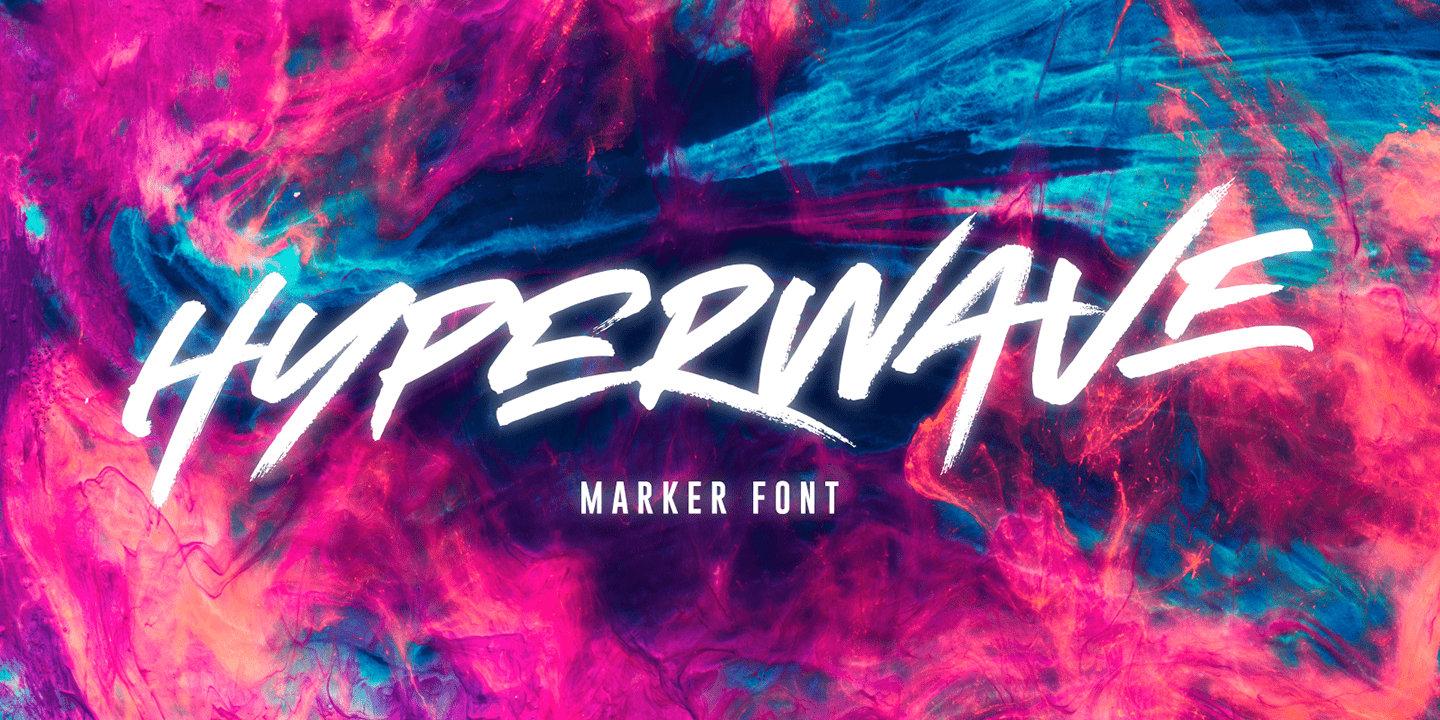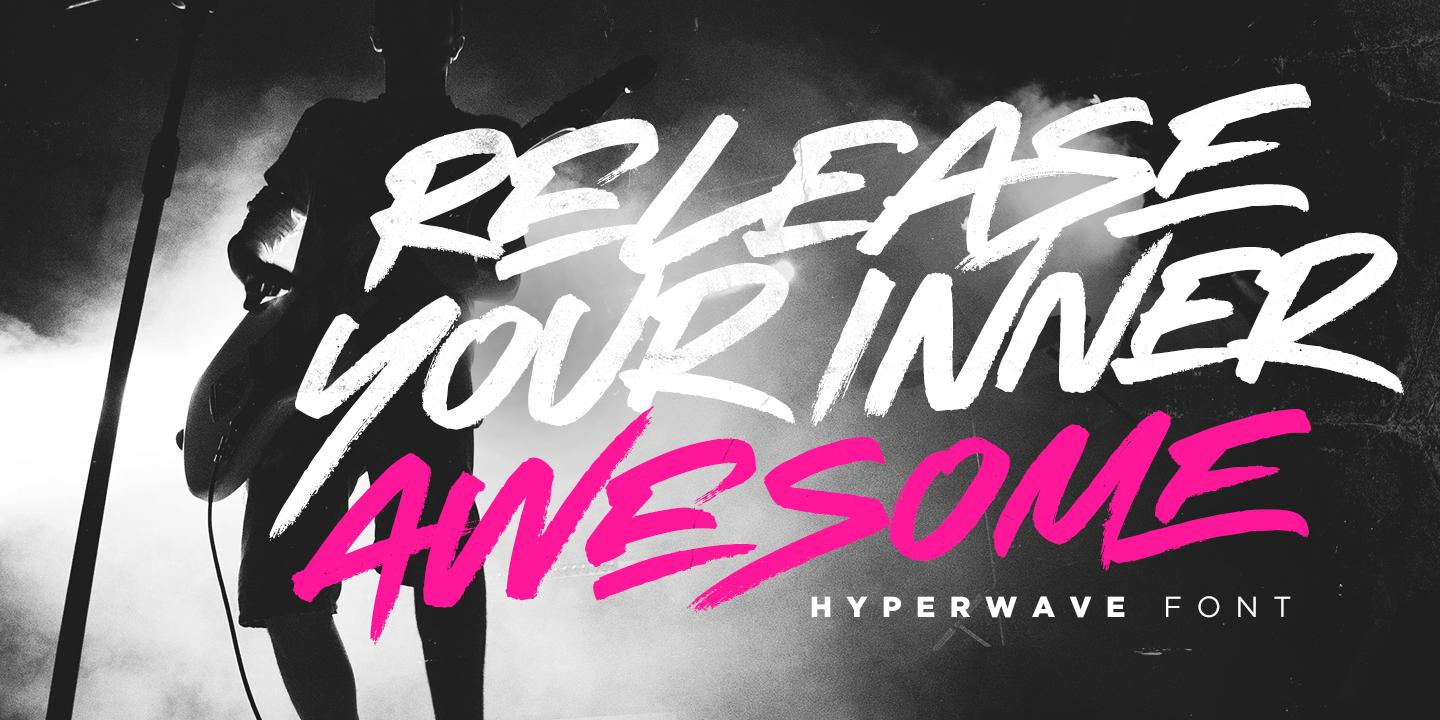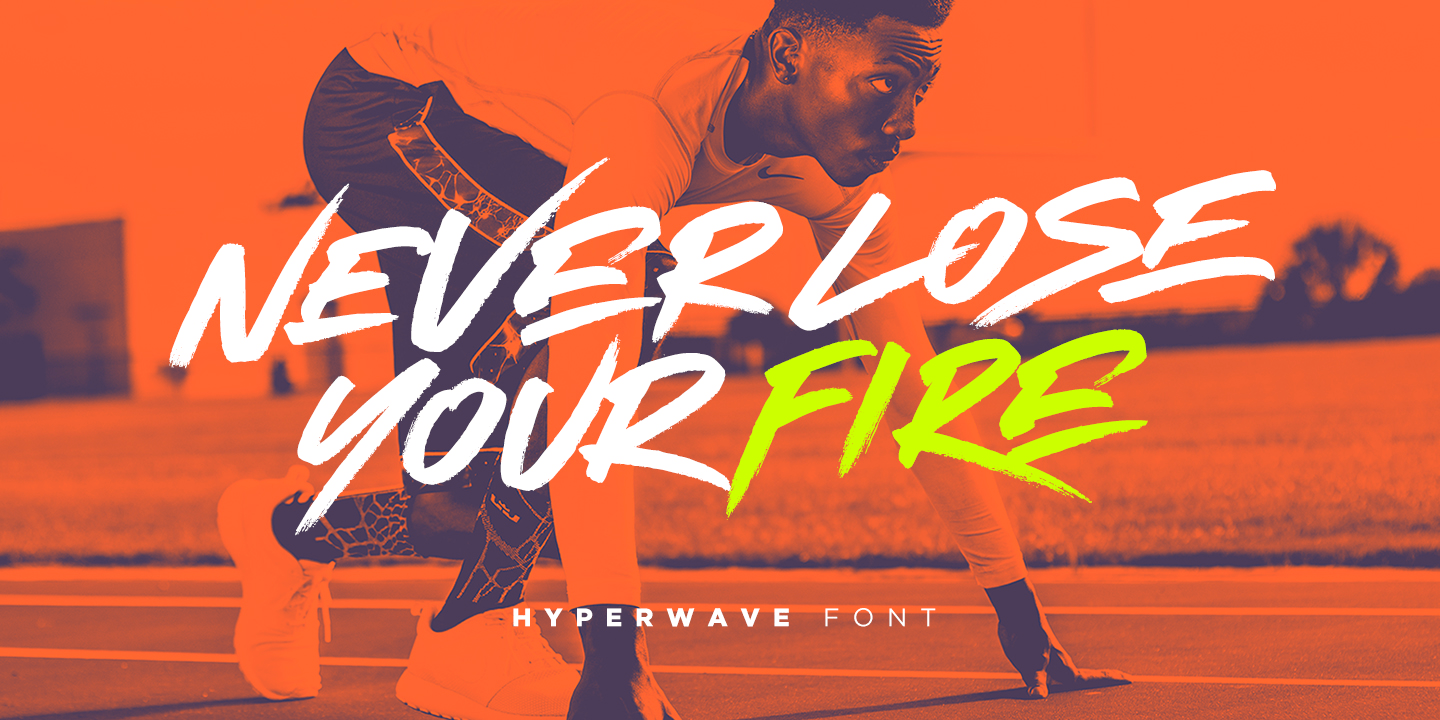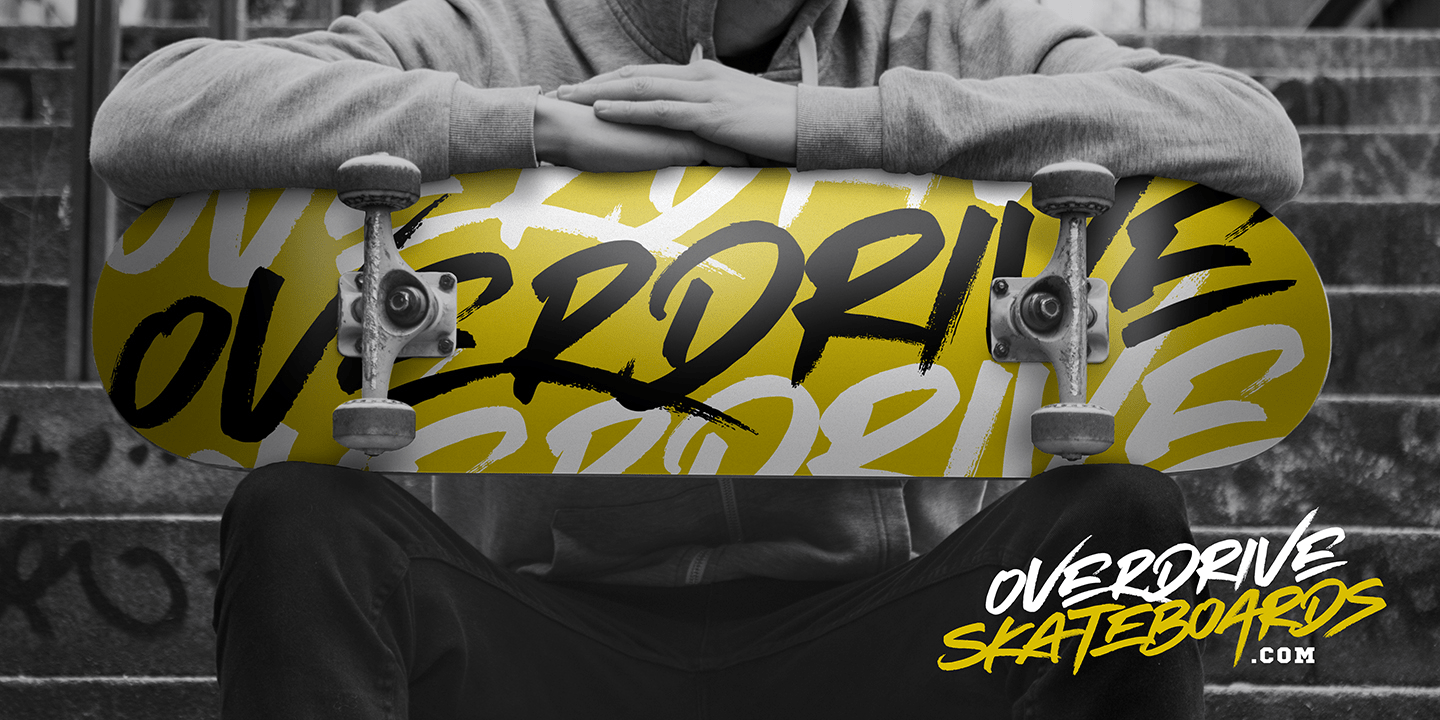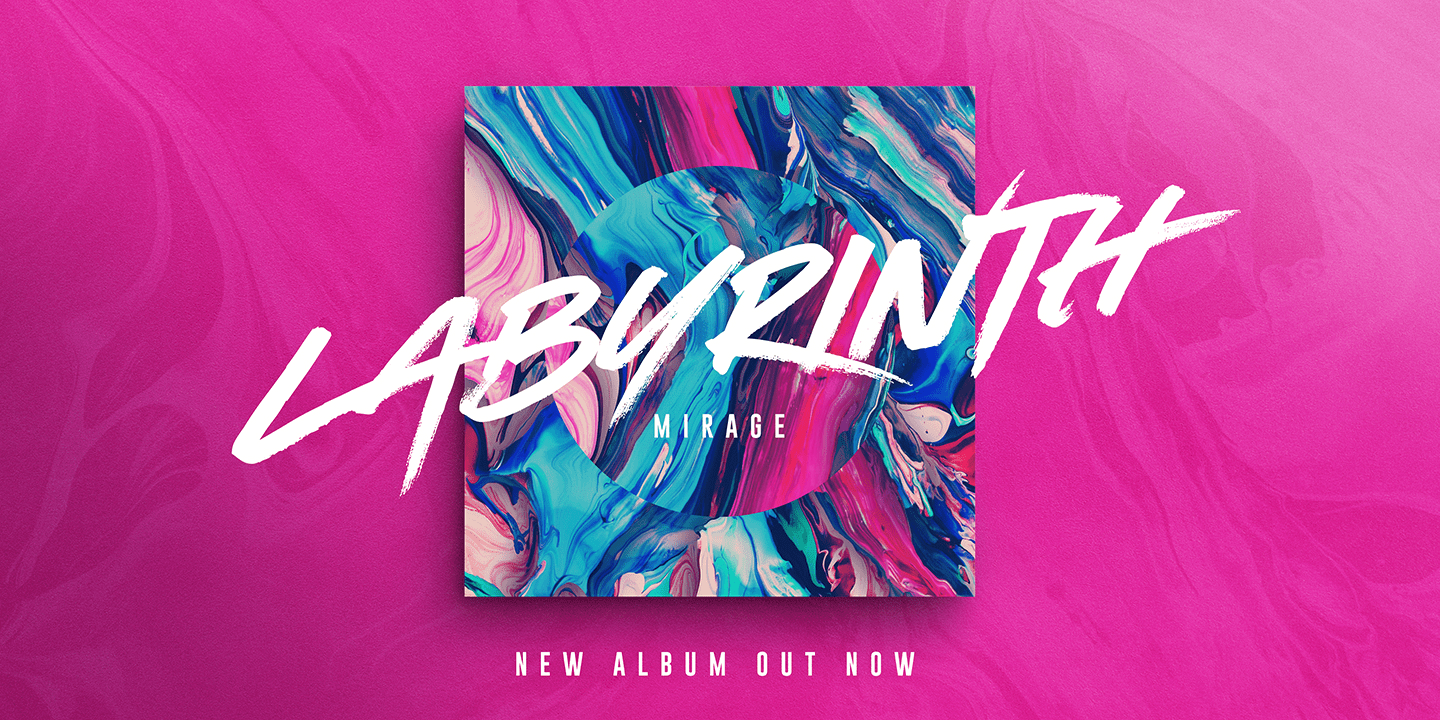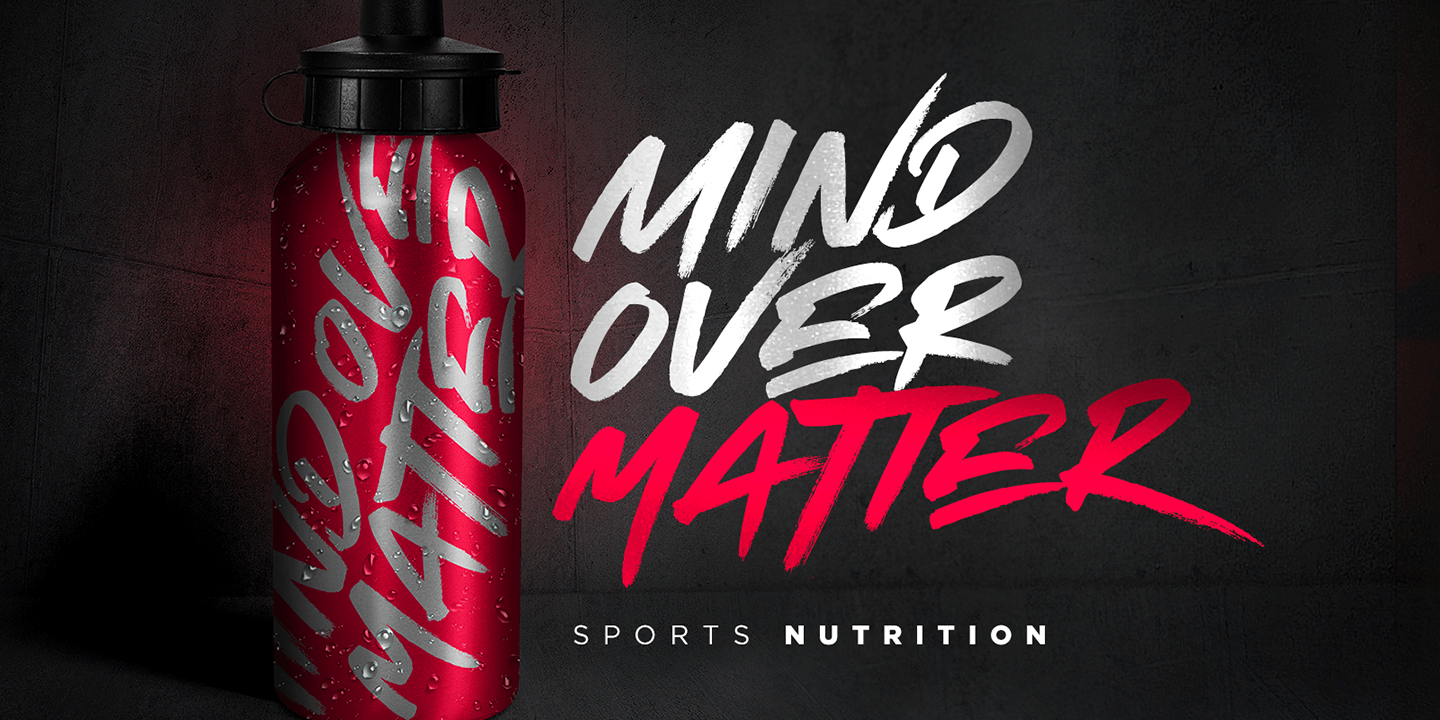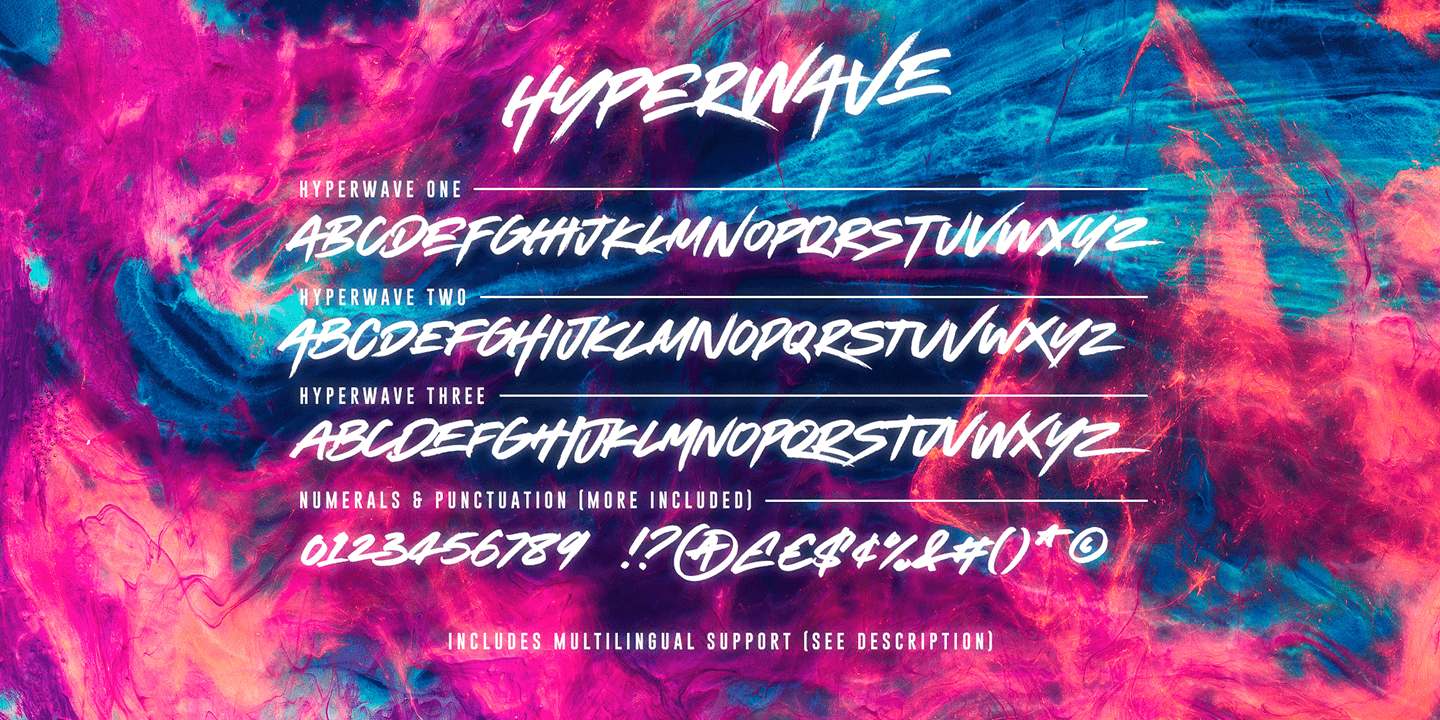
Hyperwave
Font Family by Set Sail Studios
Crank up the intensity with HYPERWAVE! An energetic set of brush fonts with a sharp attitude.
With THREE sets of each letter, each equipped with distinctive fast brush strokes, HYPERWAVE is ready and raring to make a big statement on your logo designs, brand imagery, handwritten quotes, product packaging, merchandise, music projects & social media posts.
Hyperwave One
Hyperwave Two
Hyperwave Three